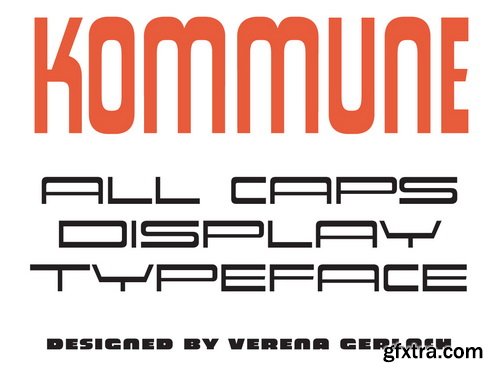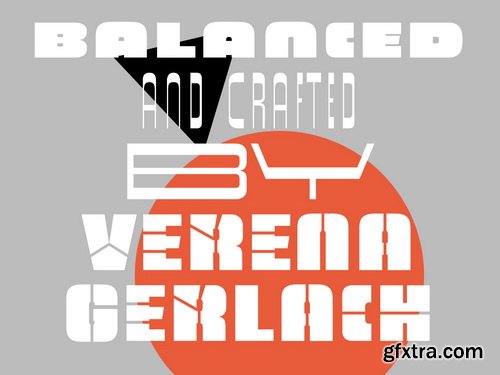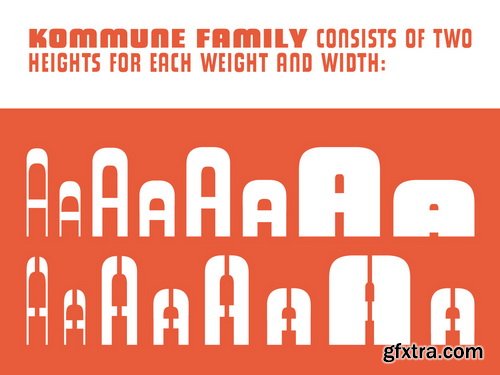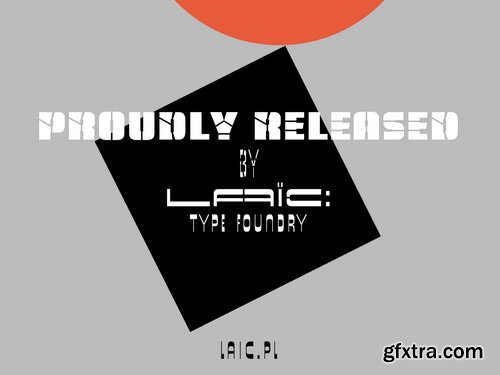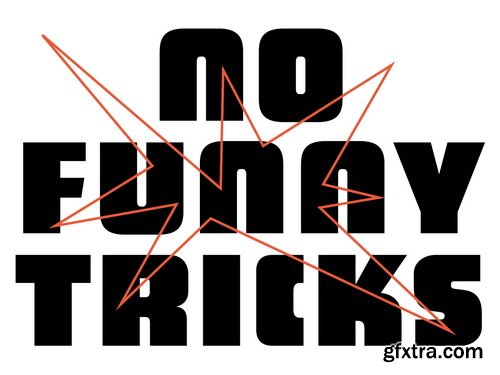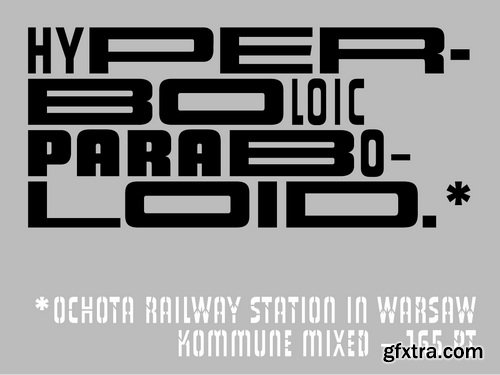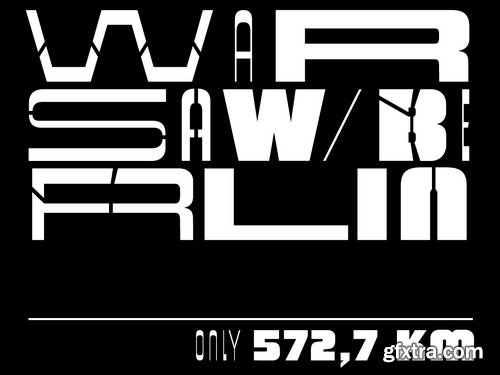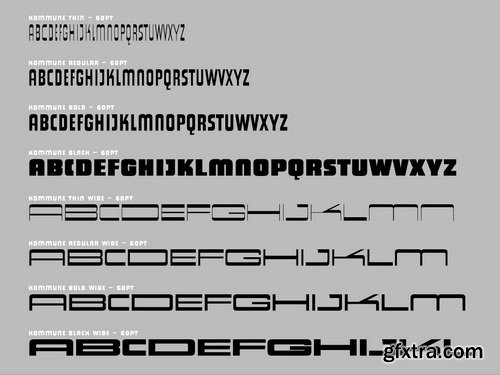
Kommune Font Family
Kommune is a display typeface inspired by the vernacular shop- and promotion letterings of Burkina Faso. Originally designed as a stencil typeface for the solo show and accompanying catalogue of Burkina Faso born Architect Francis Kéré (famous for his Laongo Opera Village and communal school buildings) at the Pinakothek der Moderne in Munich, it is now also available in a new version as a normal, non stencil typeface.